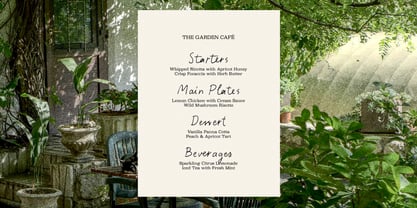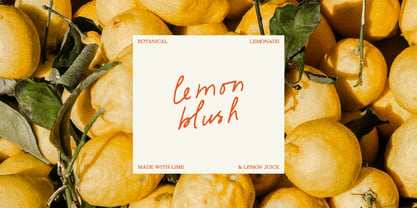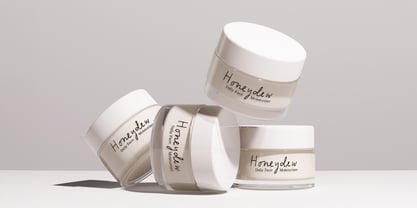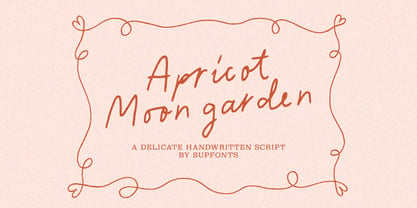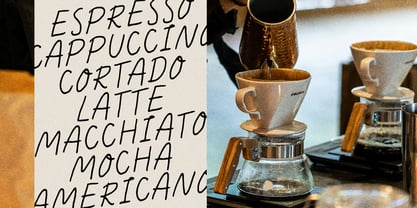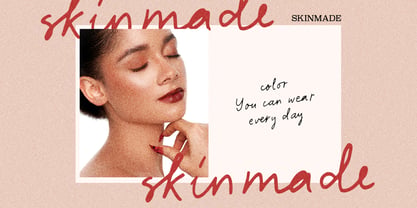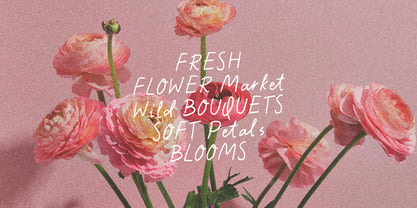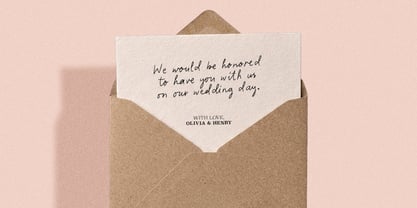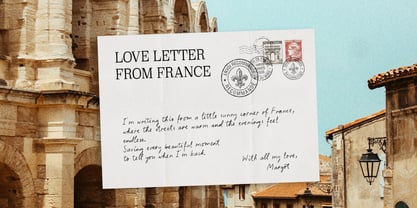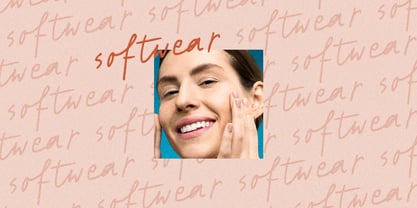
Apricot Moon Garden
Apricot Moon Garden is a soft handwritten script font with a natural, imperfect flow and a warm editorial feel. It was made for designs that need to look personal, gentle and beautifully handmade not too polished, not too formal, just easy, romantic and alive.
This font works especially well for beauty branding, skincare packaging, wedding stationery, café menus, flower shops, lifestyle posters, social media graphics, invitations, product labels, and elegant handwritten accents.
Apricot Moon Garden has a relaxed hand-drawn rhythm, soft curves and plenty of ligatures, so your words feel more natural and less repetitive. It is a lovely choice for feminine brands, cozy editorial layouts, romantic packaging and anything that needs a delicate handwritten touch.
Full uppercase and lowercase letters
Numbers and basic punctuation
190 ligatures for a more natural handwritten look
Multilingual support for all European languages
Accented characters and diacritics
Basic symbols and standard typographic characters
Smooth handwritten script style
Perfect for logos, branding, packaging, wedding designs, menus, posters and social media